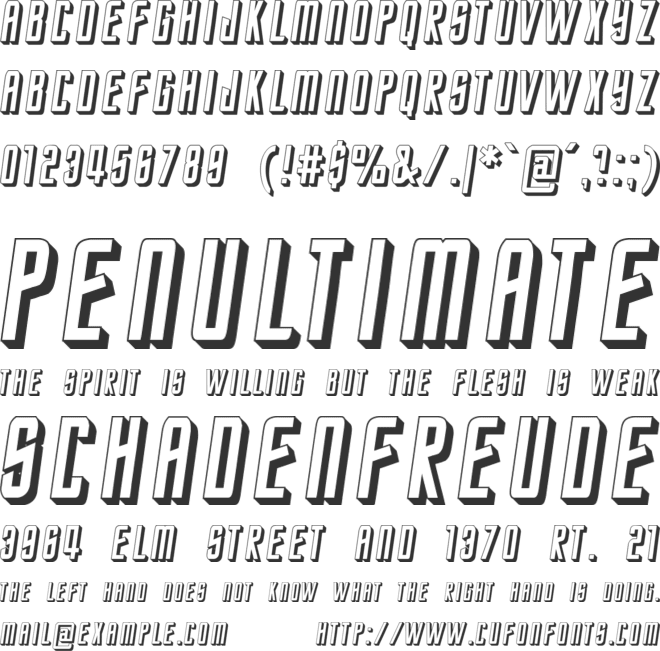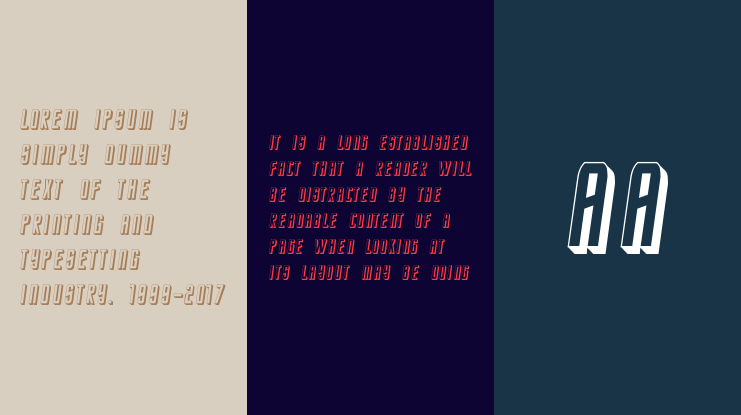
Star Trek Enterprise Future Font Family
P. A. Vannucci
Space, the Last Frontier. Directly from the famous tv-saga, the original font proposed in the film by J.J. Abrams